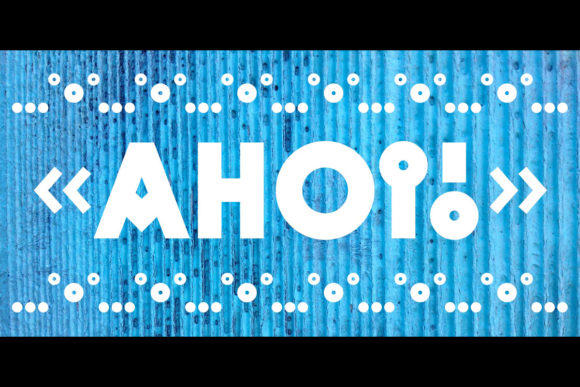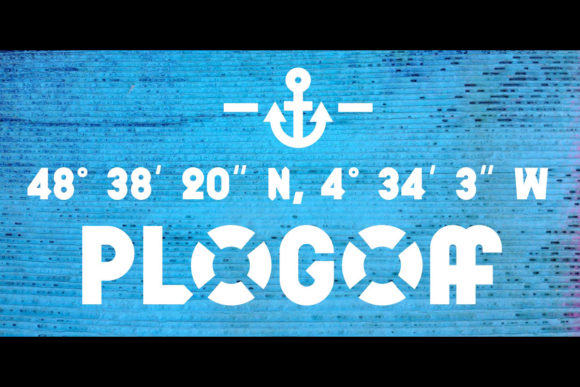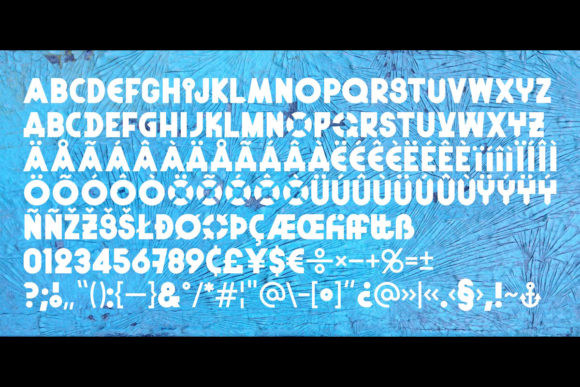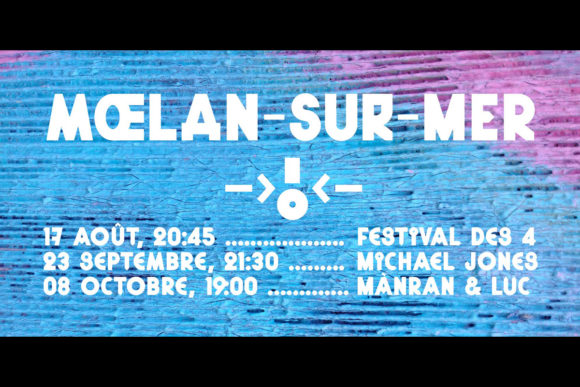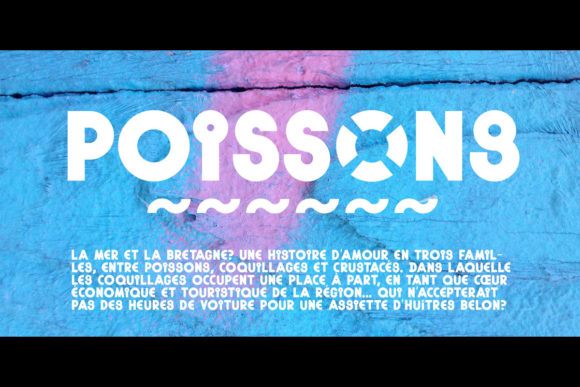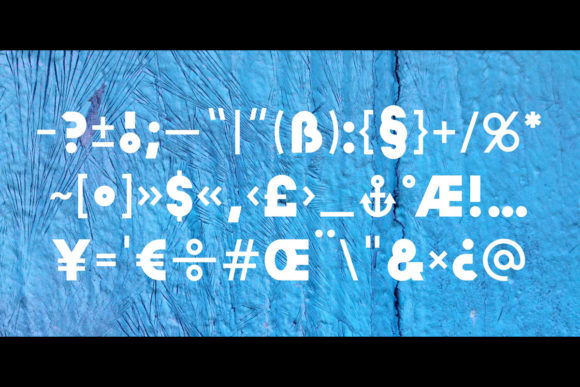
The BD Matrose Font: A Bold Display Favorite
Have you ever been in the middle of a design project, and suddenly, you’re stuck on finding the perfect font? I recall a recent experience where I was working on a client’s branding project, and I just couldn’t find a font that screamed bold and confident. That’s when I stumbled upon the BD Matrose font, and let me tell you, it was love at first sight! 💕
BD Matrose is a bold display font, carefully handcrafted to become a true favorite. This font will look outstanding in any context, whether it’s being used on busy backgrounds or as a standalone headline! Its unique charm and character make it perfect for designers, crafters, and creative hobbyists looking to add a touch of personality to their work.
- ✨ Unique Character: BD Matrose has a distinct personality that sets it apart from other bold display fonts.
- ✅ Versatility: It works well on both busy backgrounds and as a standalone headline.
- 💡 Instant Impact: The font grabs attention and makes a statement.
⚠️ While BD Matrose is an amazing font, it’s essential to note that it might not be the best choice for body text or long paragraphs. Its bold nature makes it more suitable for headlines and titles. 🤔 Additionally, some users might find the font a bit too condensed for their taste.
The Designer Inspiration Behind BD Matrose
The creator of BD Matrose drew inspiration from classic typography and modern design trends. The font’s unique character and bold nature make it perfect for designers looking to add a touch of personality to their work. While the actual designer’s story might be unknown, it’s clear that their passion for typography and design resulted in a truly exceptional font.
| Font Name | BD Matrose Font |
| Author | Büro Destruct |
Q: What is BD Matrose best used for?
A: BD Matrose is best used for headlines, titles, and bold displays. Its unique character and bold nature make it perfect for grabbing attention and making a statement.
Q: Can I use BD Matrose for body text?
A: While BD Matrose is an amazing font, it’s not recommended for body text or long paragraphs. Its bold nature makes it more suitable for headlines and titles.